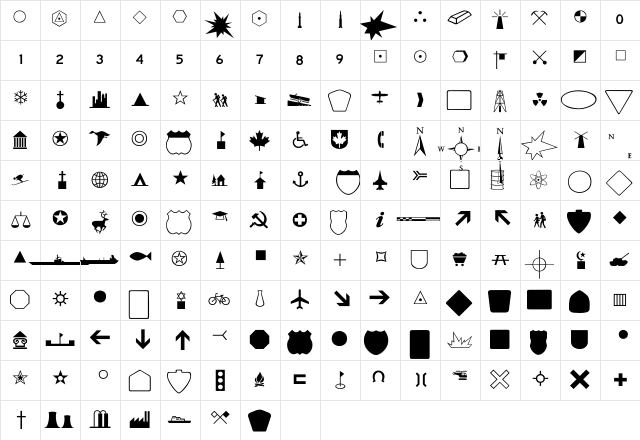
Carta-Normal Regular
Design Context for Carta-Normal
Carta-Normal is a composed and adaptable typeface that performs quietly and consistently across a wide range of design contexts.